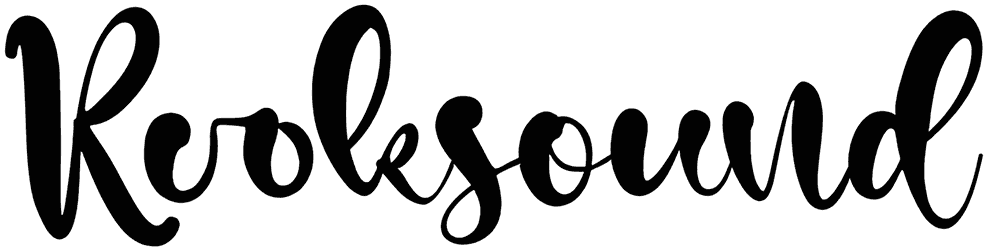
Rooksound Font
If you want to present a modern design with a catchy look, don’t pass on this option. Rooksound is a spring font with a smooth brush lettering form that can reflect an urban vibe. With an almost full backup of characters…
If you want to present a modern design with a catchy look, don’t pass on this option. Rooksound is a spring font with a smooth brush lettering form that can reflect an urban vibe. With an almost full backup of characters, this unique handwritten font will give a perfect show to your intended designs, from tattoos to business cards.